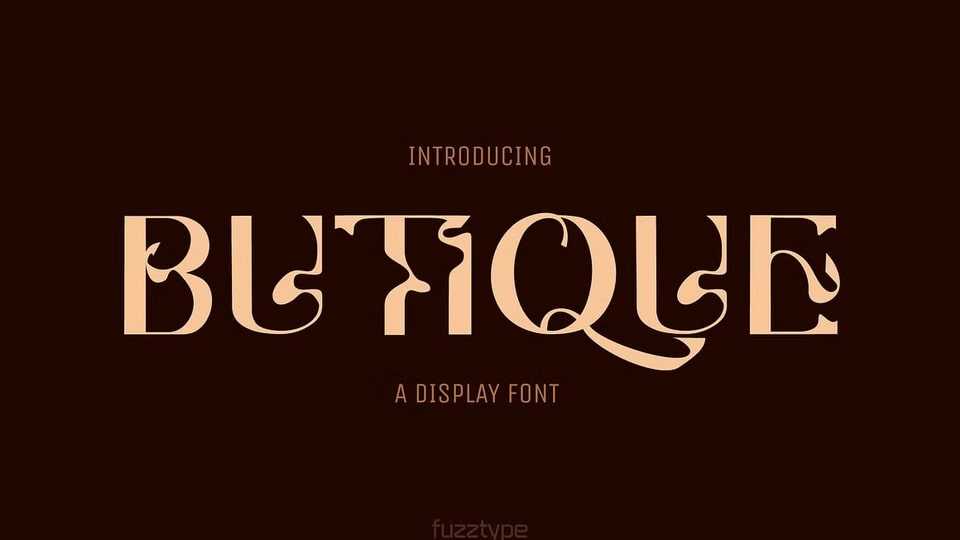
Download Butique font, a display typeface featuring curvy classy shapes, inspired by the psychedelic vibes of the 1960s, highly suitable for various projects.
Designer: Fuzztype